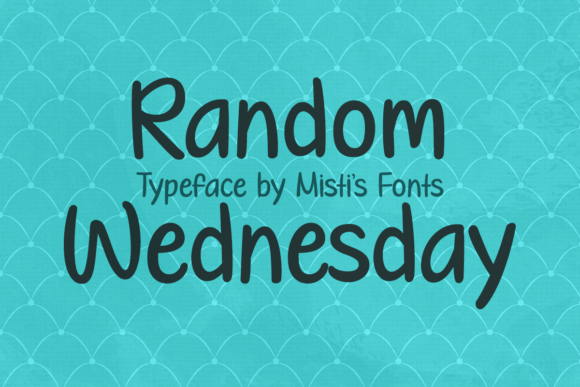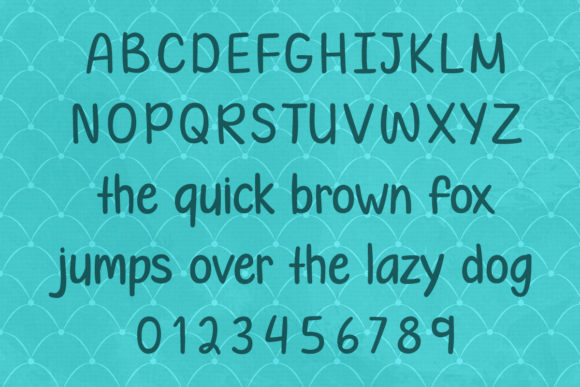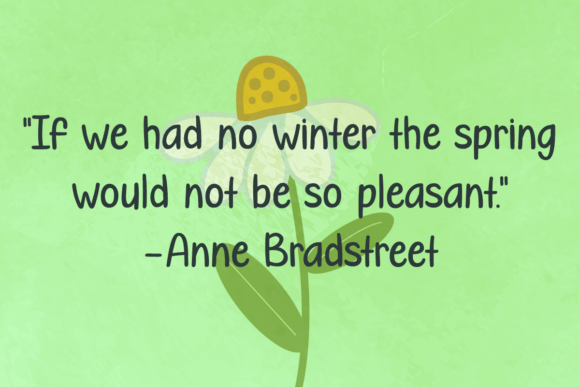
Random Wednesday Font
About the Random Wednesday Font
Discover the charm of Random Wednesday Font. This font is a perfect blend of modern aesthetics and classic appeal. Random Wednesday is a casual, handwritten font with a playful and slightly unpredictable charm. Its natural strokes and relaxed feel make it perfect for personal projects, branding, social media, and more. Add a touch of spontaneity to your designs with Random Wednesday!
Random Wednesday thrives in applications requiring a friendly, approachable feel. It excels in short headlines, social media graphics, logos for artisan businesses, and packaging for quirky products. Avoid using it for large blocks of text or UI elements; its casual nature compromises readability in extended passages.
Pair Random Wednesday with a clean sans-serif like Open Sans for a balanced contrast, or a more geometric sans-serif such as Futura for a modern edge. For a touch of elegance, consider pairing it with a delicate serif like Lato. These pairings provide structure and readability that complements the font’s playful energy.
Its core personality is undeniably casual and friendly, making it ideal for brands targeting a younger demographic or those promoting a handmade, personal touch. The font’s slightly unpredictable nature adds a touch of whimsy without sacrificing legibility in appropriate contexts.